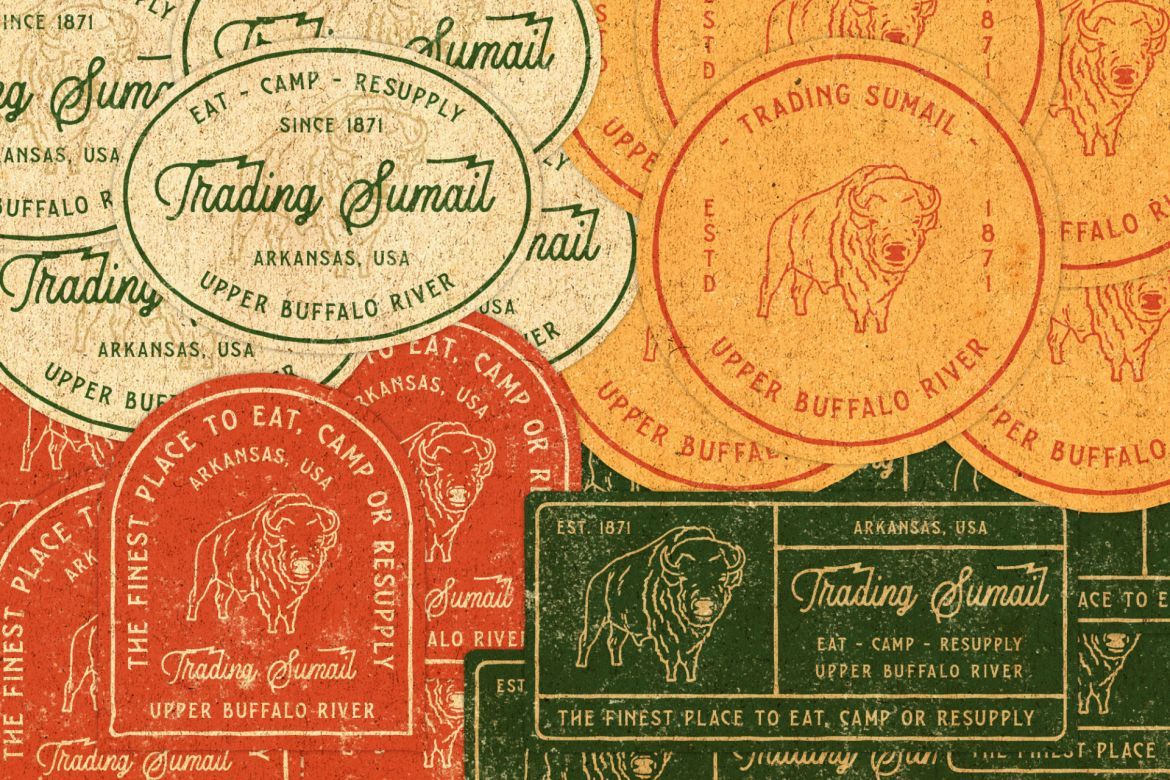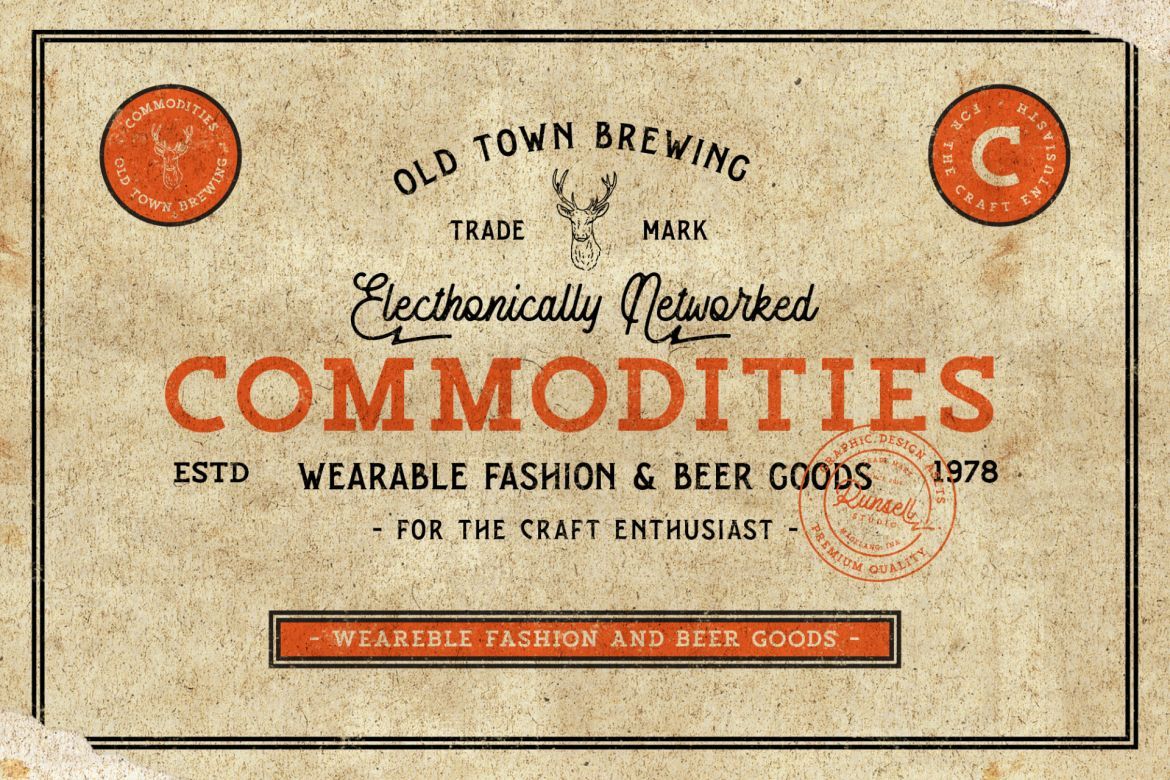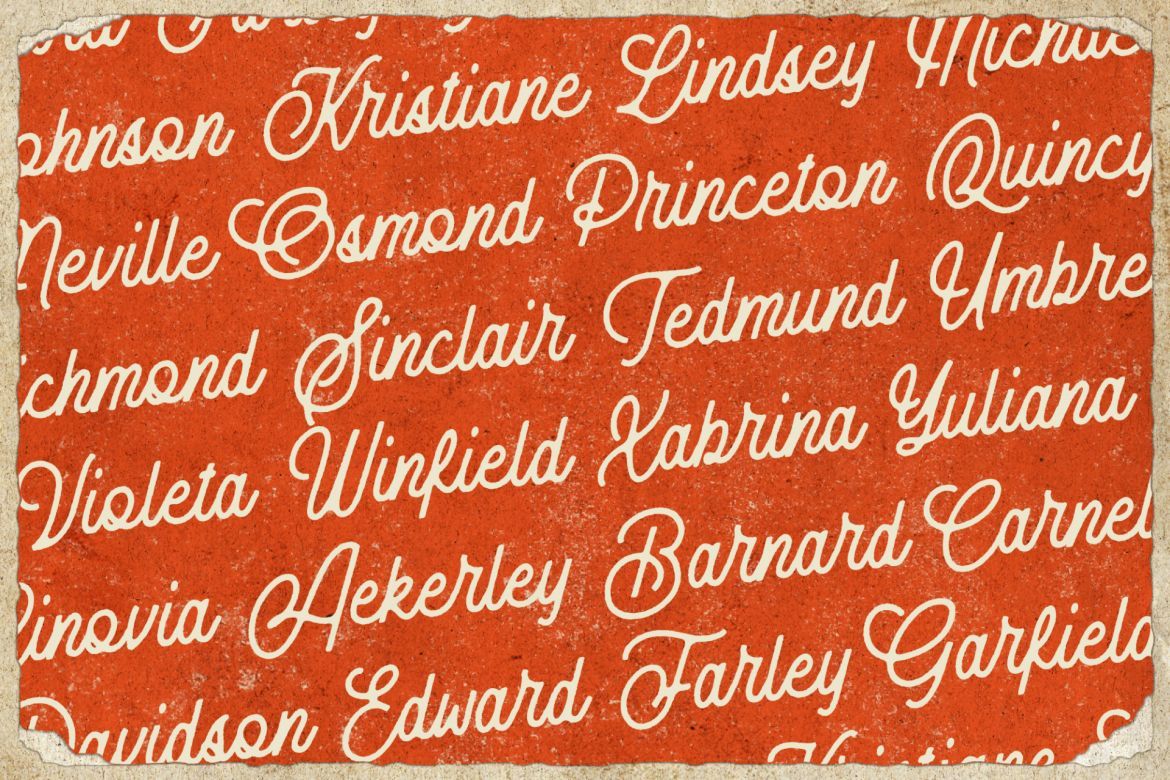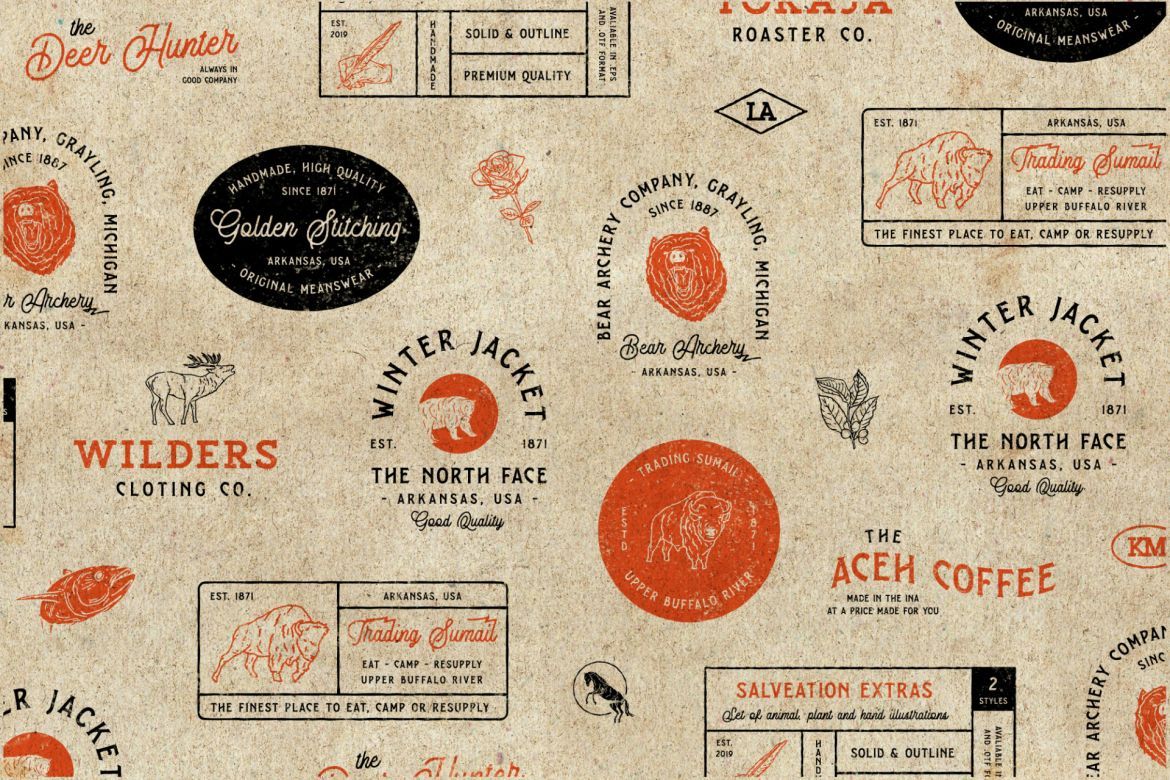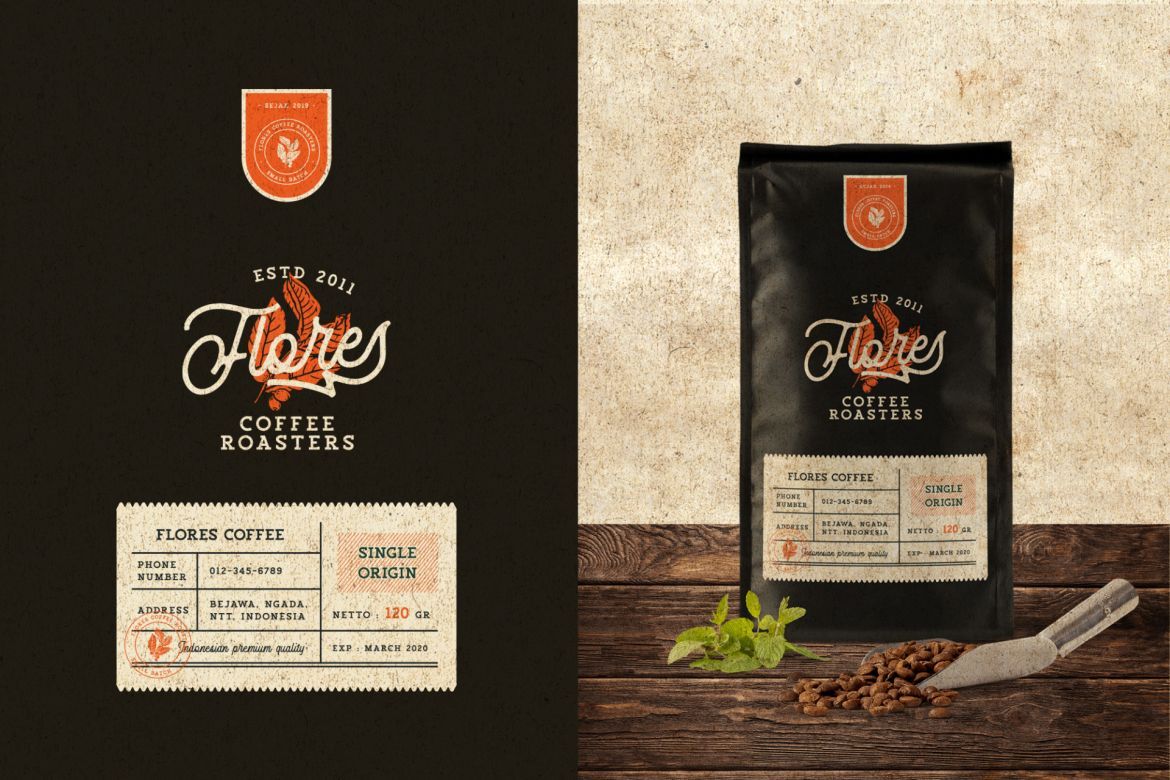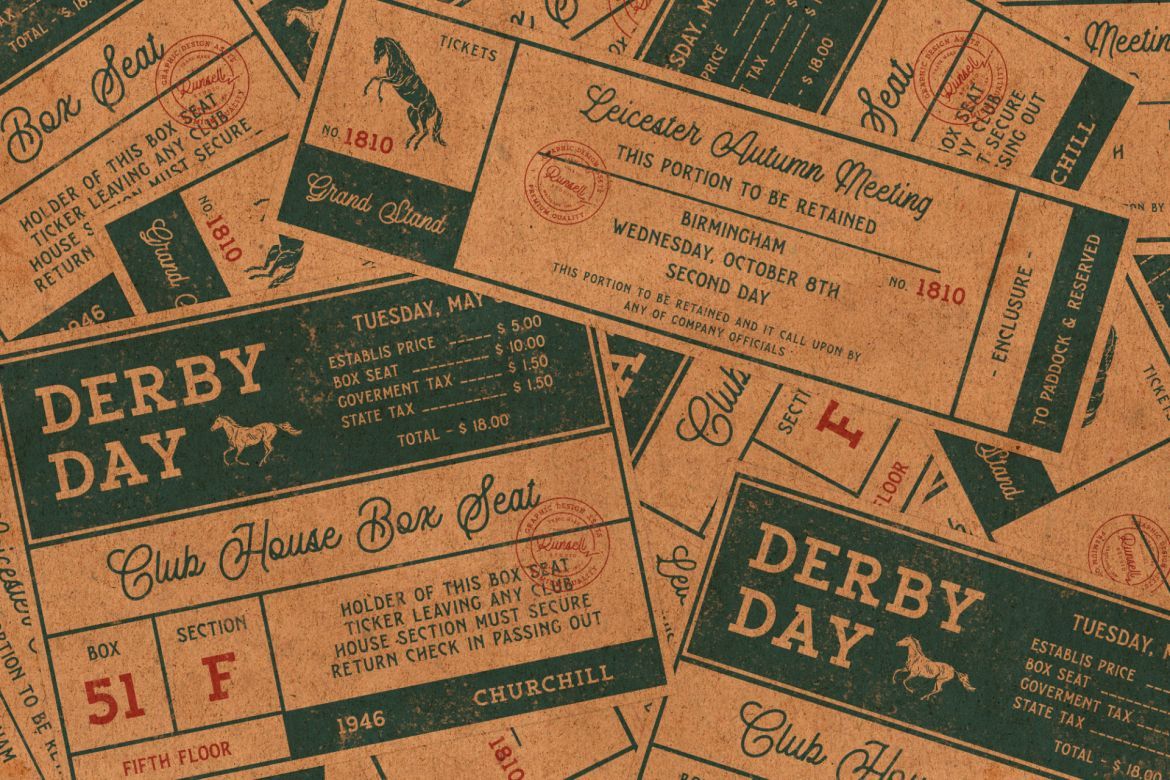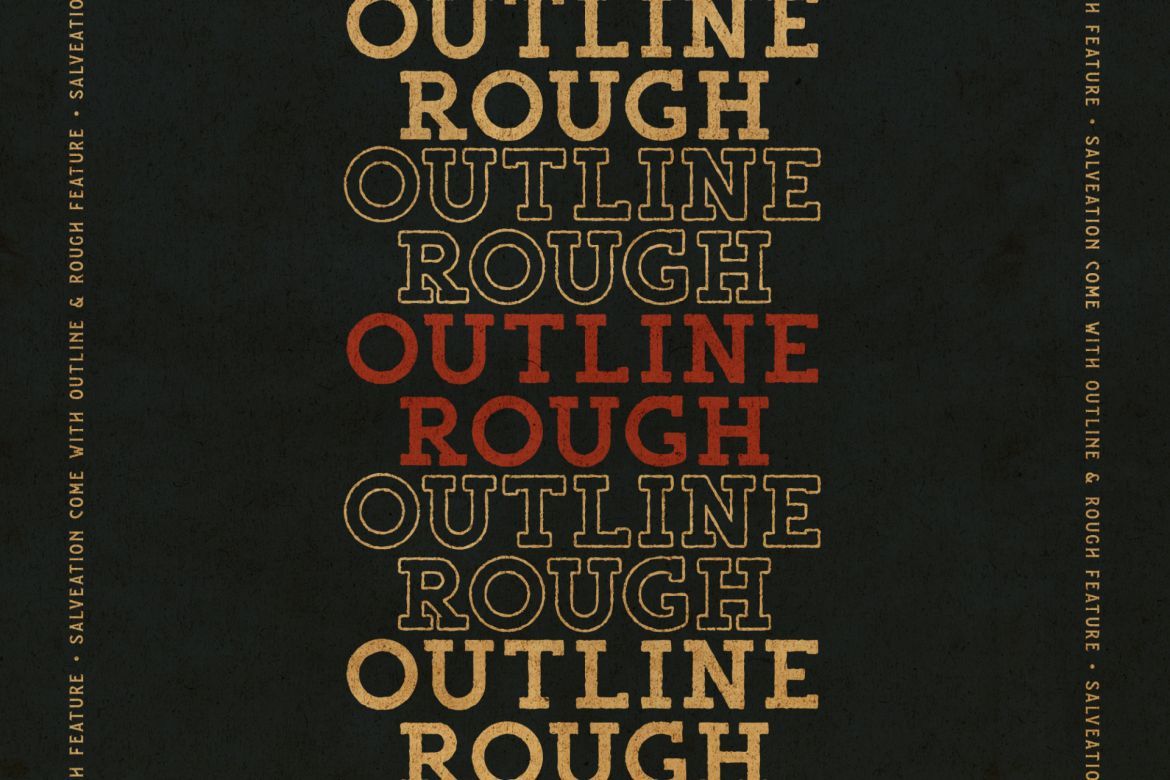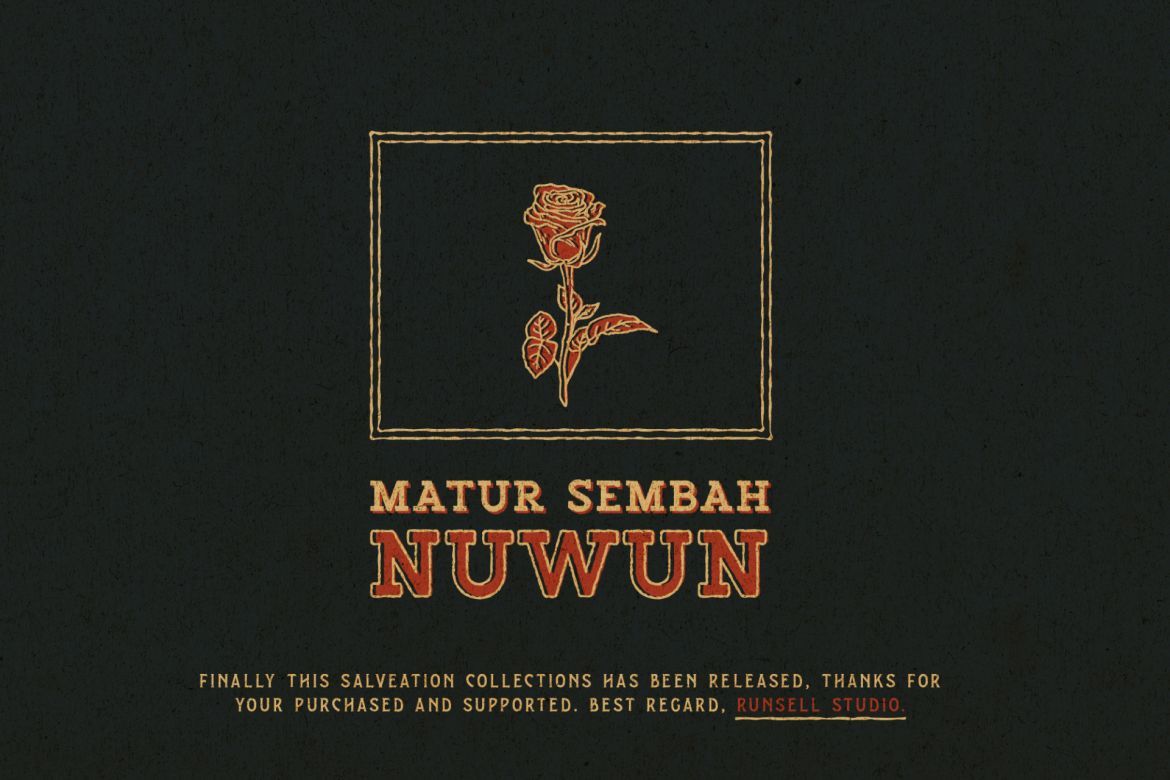
Salveation Font Collection
The Salveation perfectly represents vintage aesthetics in a contemporary script, serif and slab serif typeface. This collections consists of clean, rough and outline feature as well. This font matches applies in some designs such as the logotype, brand, packaging, branding, quotes, business cards and more custom design.
• 3 styles typeface (monoline script, serif and slab serif) and 1 digbat illustration
• perfectly represents vintage designs
• rough and outline features
• the features uppercase, lowercase, numeral, punctuation & symbol, ligatures, stylistic alternates, multilingual support, pua encoded